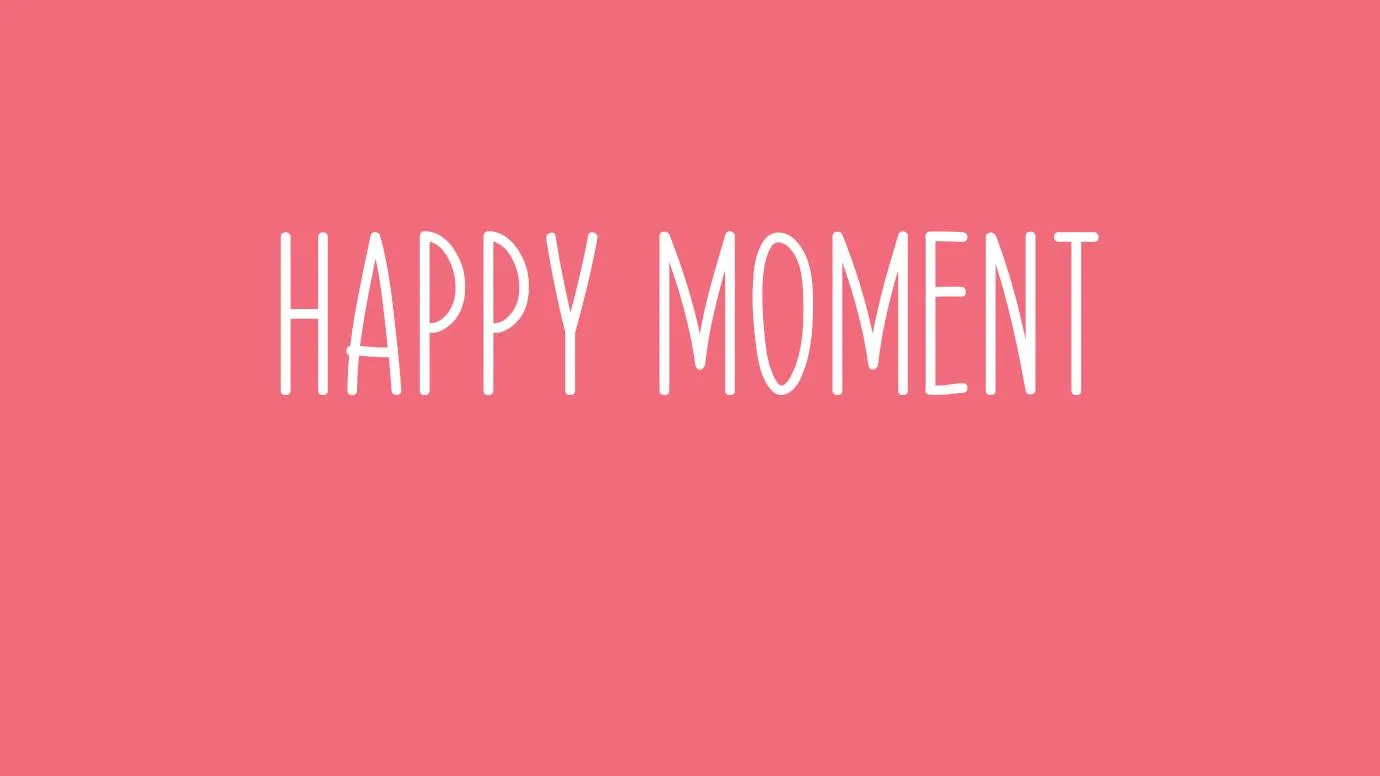
Happy Moment Font Family is a very nice and attractive handwritten typeface. You can make all personal and commercial projects by using this font. This interesting font was designed by Md Sohail Bhunain.
Happy Moment Font